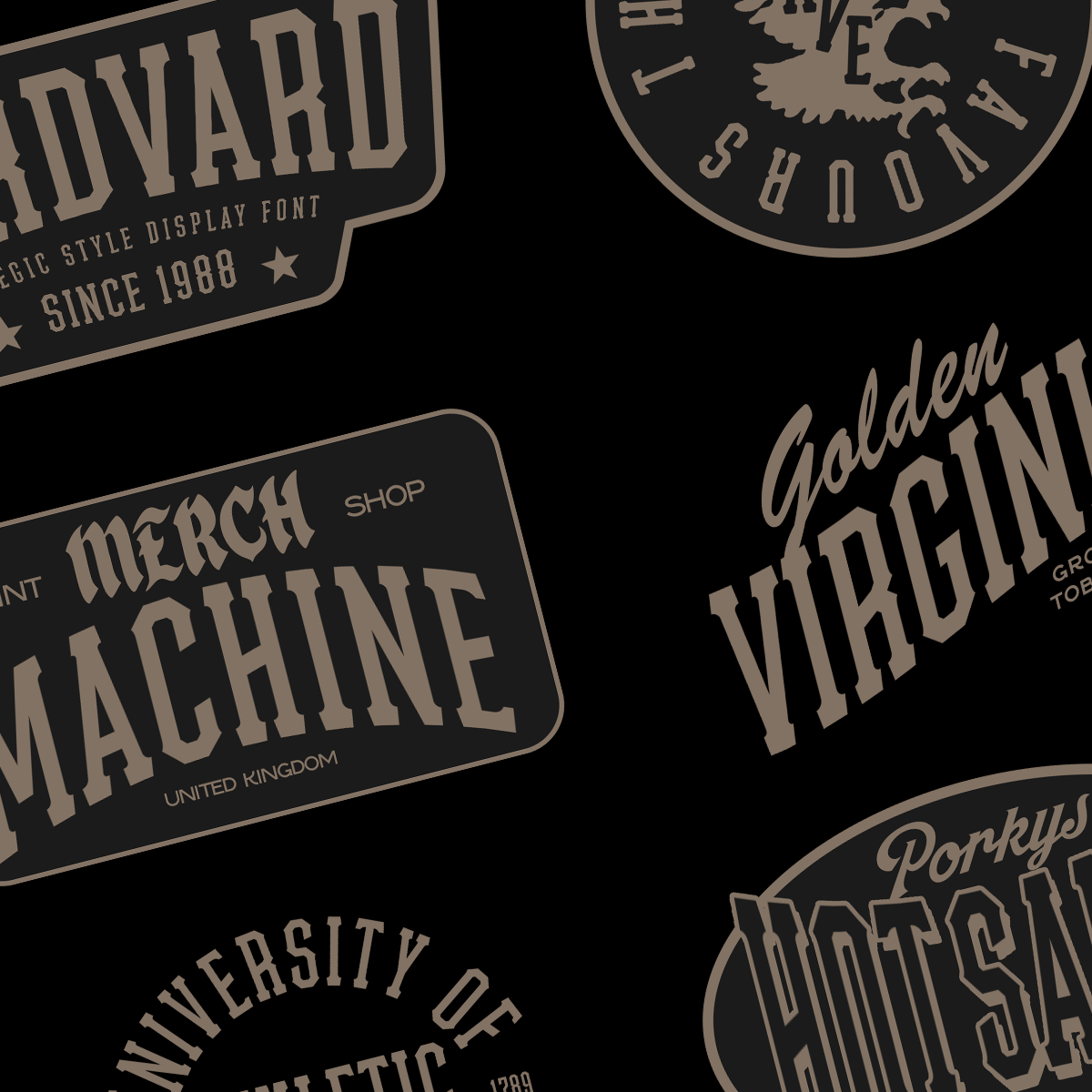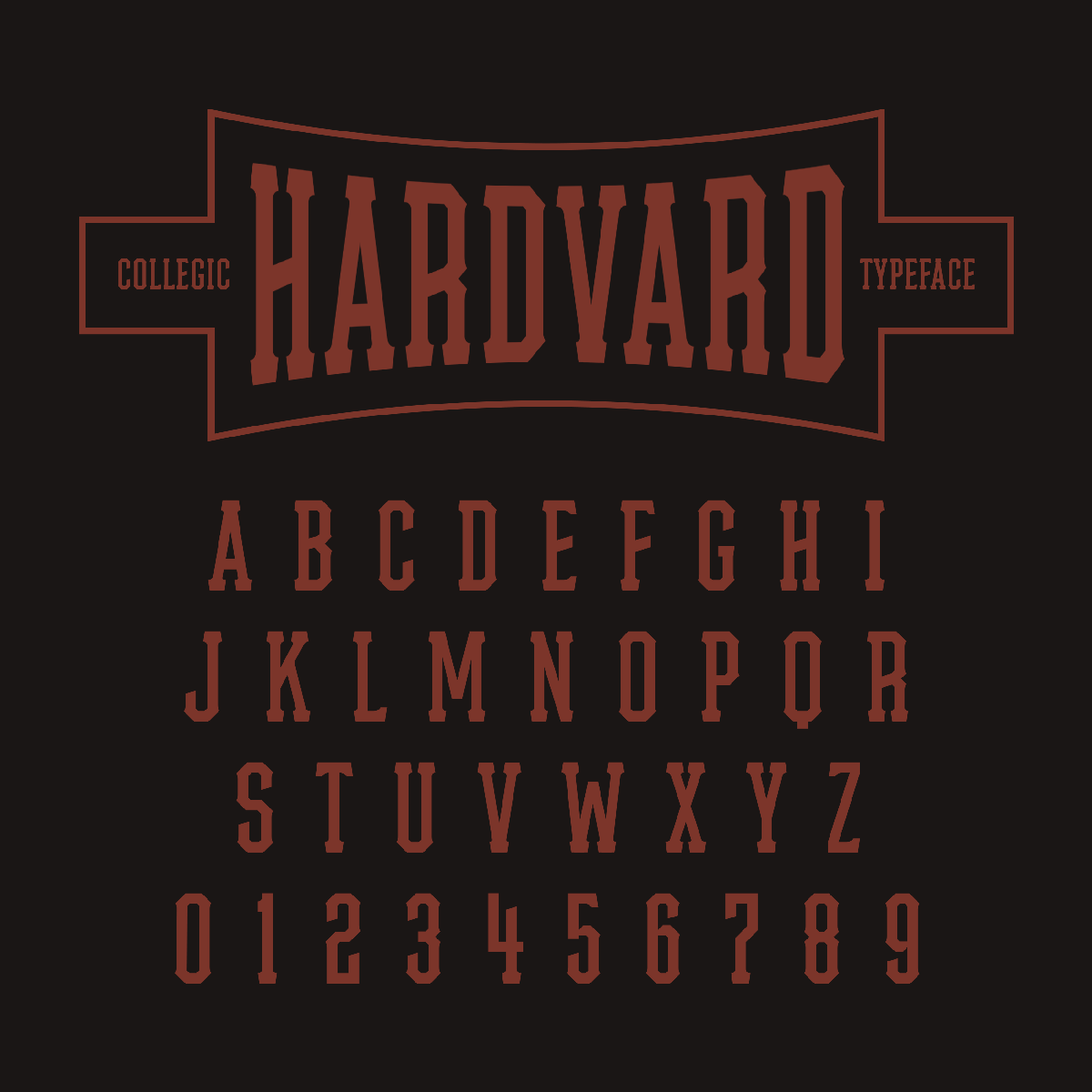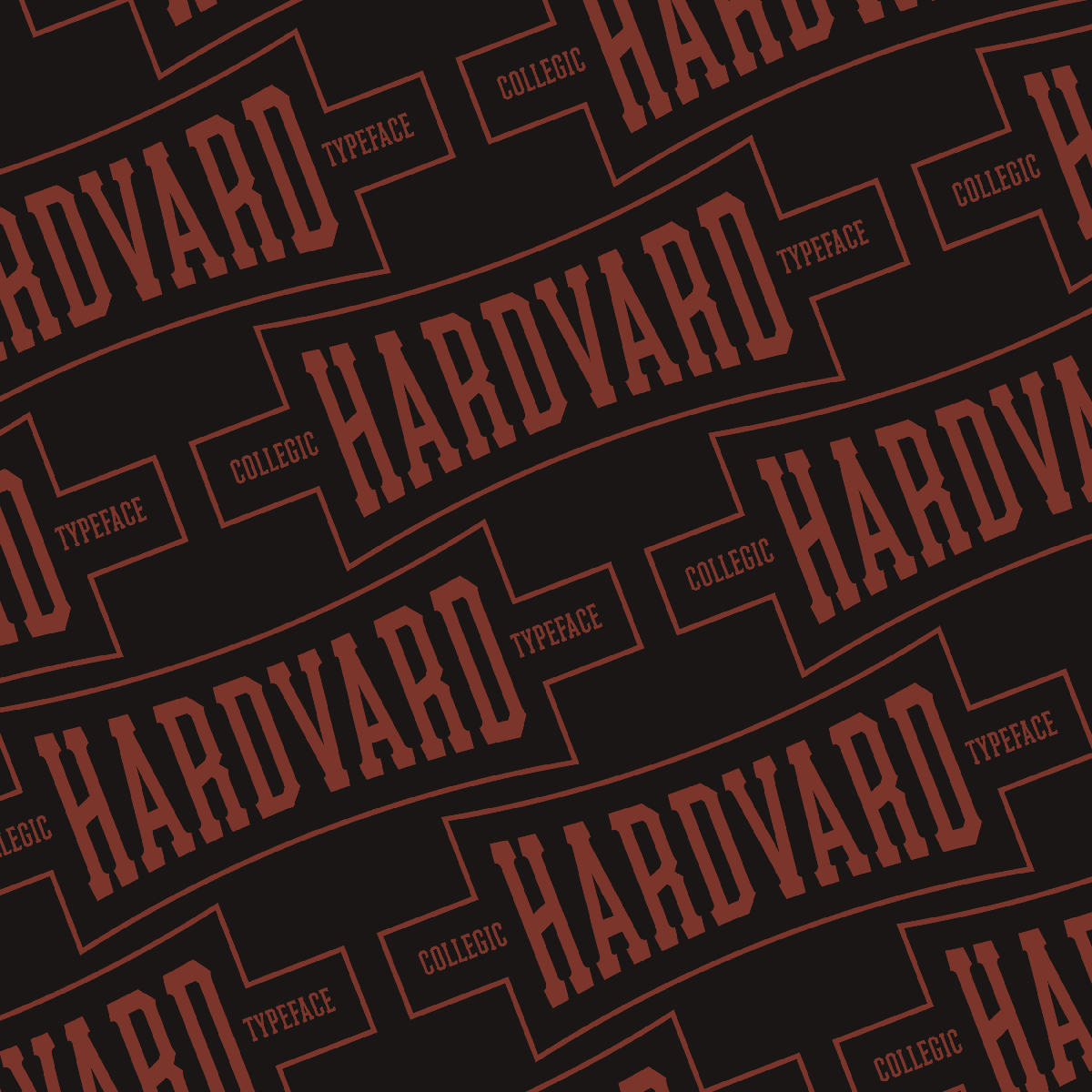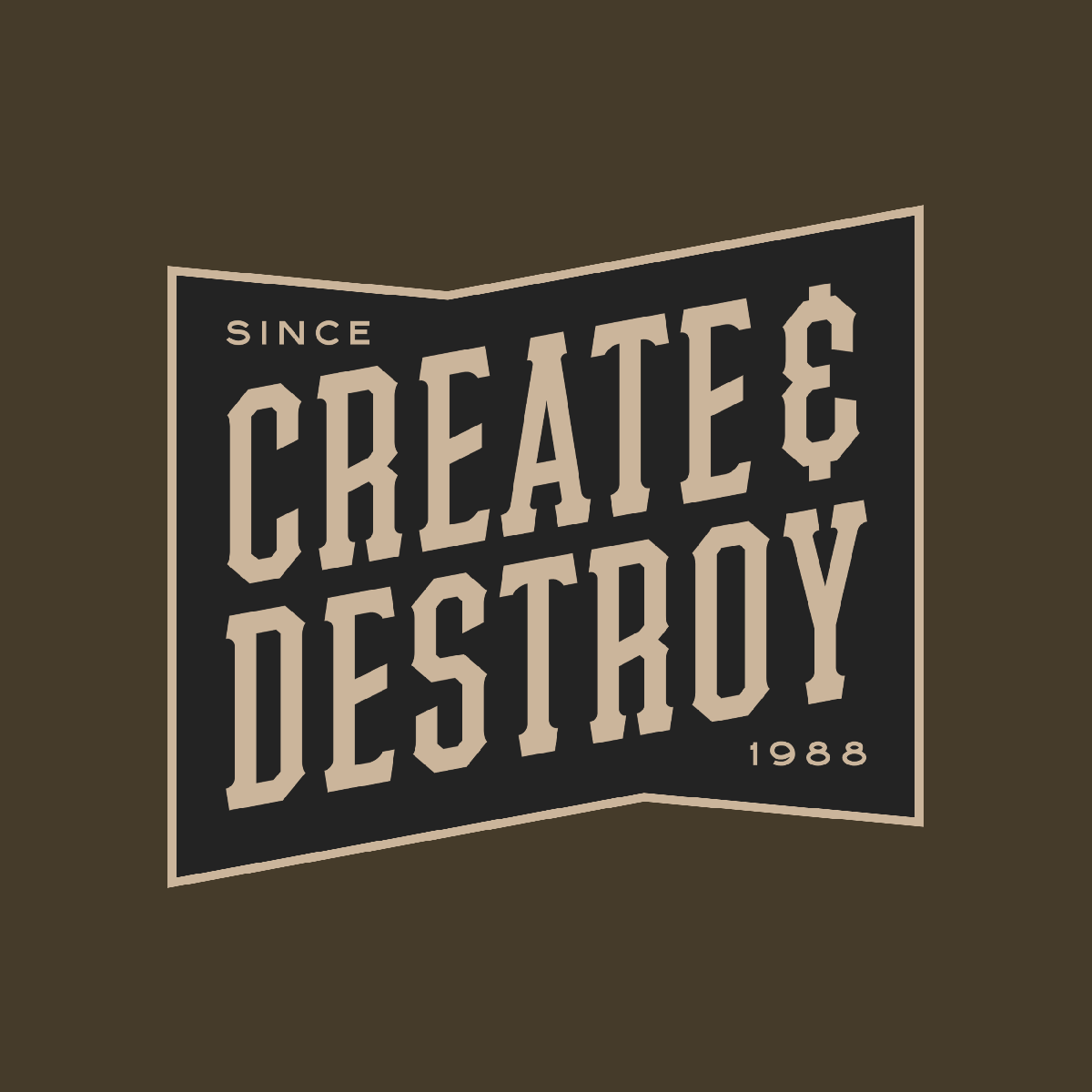
Introducing "Hardvard" A hard hitting collegic font.
Inspired by collegic typefaces this display font is an absolute monster for classic, timeless merchandise design, stickers, logos and so much more.
Ideal for:
Logos
Merchandise
Posters
Packaging
And much more!
Full Uppercase alphabet
Numerals and essential punctuation